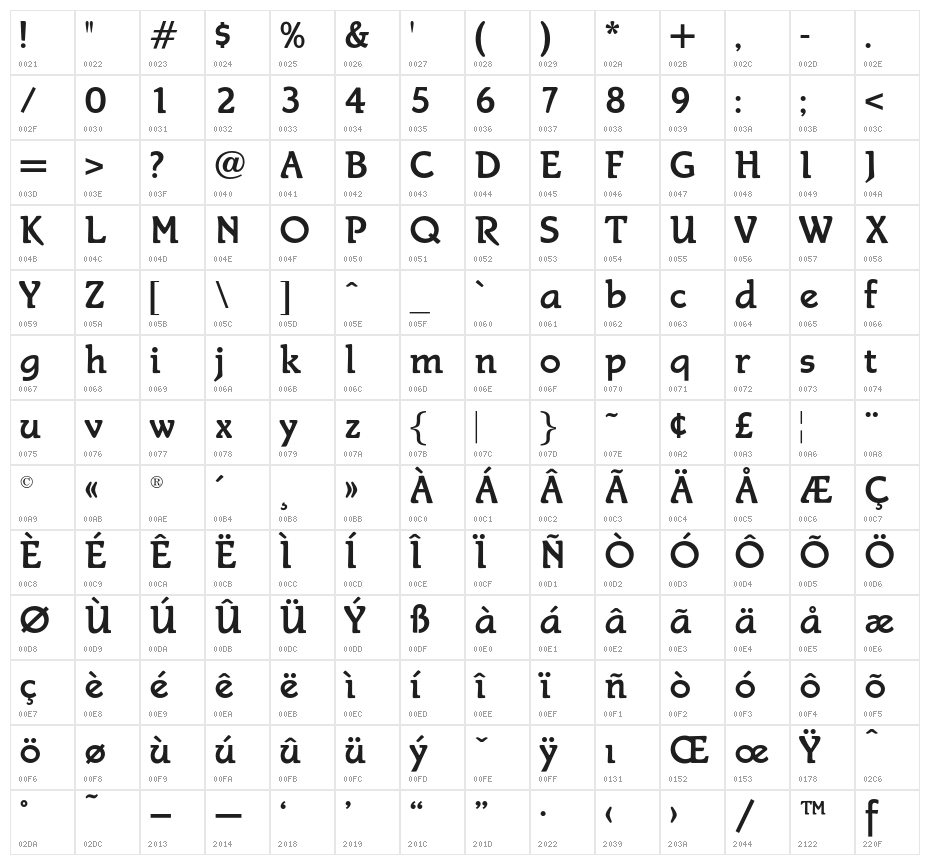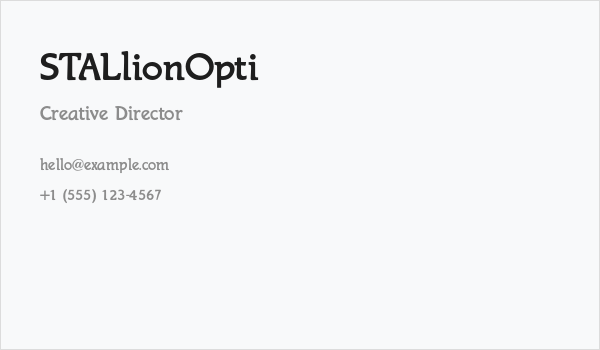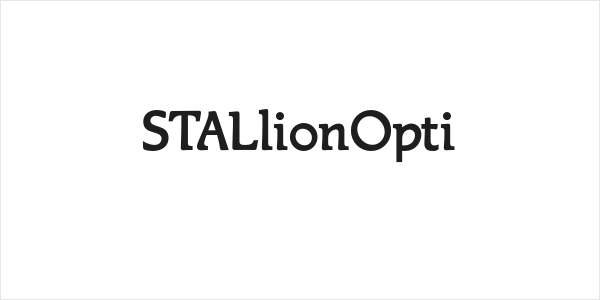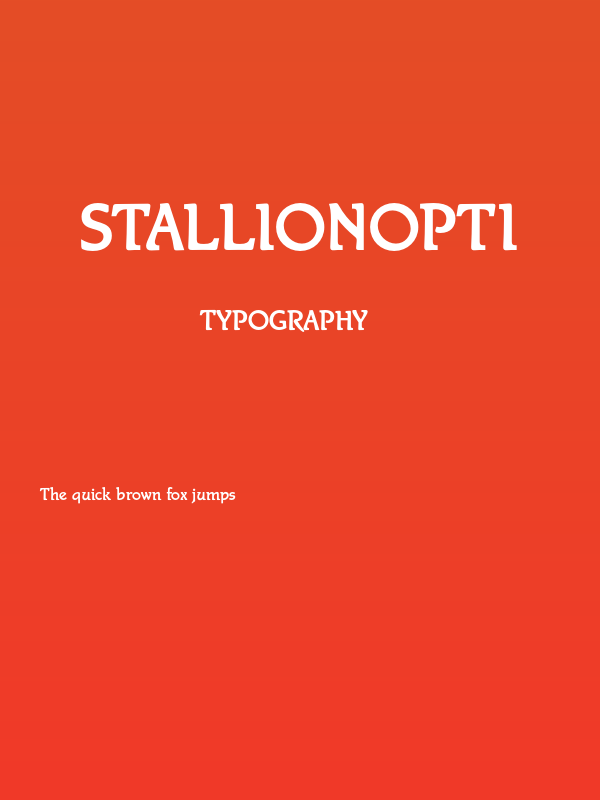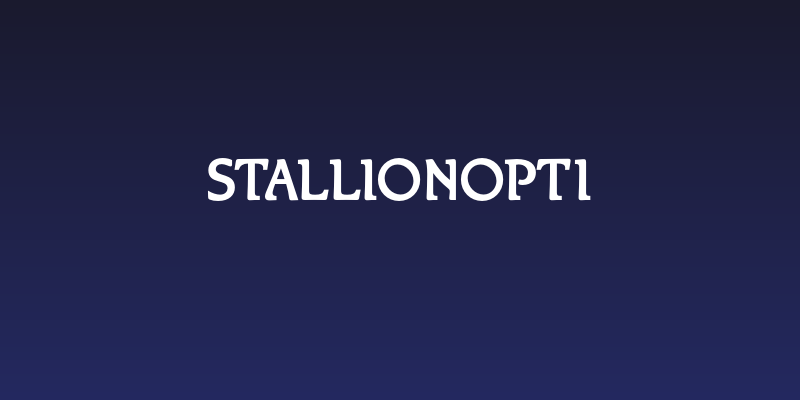
STALlionOpti Font
STALlionOpti Description
This font features a bold and dynamic style with a strong presence, characterized by its thick strokes and slightly curved serifs. The uppercase letters exhibit a commanding appearance, while the lowercase letters maintain a consistent flow with rounded edges. The numerals are robust and clear, ensuring readability. Special characters are designed with the same boldness, making them stand out effectively. This font's overall design combines traditional serif elements with a modern twist, making it versatile for various applications.
| Proposed Projects | Ideal for branding, headlines, posters, and editorial design where a strong, impactful typeface is needed. |